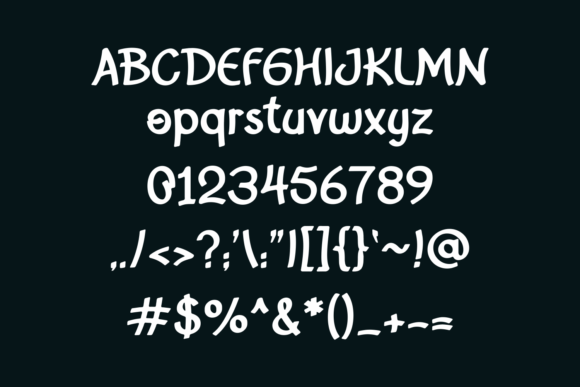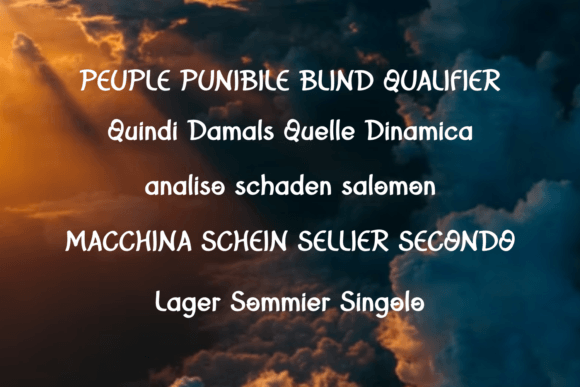
Introduction to Minorika Font
As designers, we’ve all been there – staring at a blank canvas, struggling to find the perfect font to bring our creative project to life. The right font can elevate an entire design, but the wrong one can leave it feeling flat and uninspired. That’s why discovering a high-quality, unique font like the Minorika Font is a game-changer.
With its sleek, sans-serif design and meticulous attention to detail, the Minorika Font is a valuable addition to any designer’s toolkit. Whether you’re working on a personal project or a client’s design, this font has the potential to take your creations to the next level. And the best part? It’s available for free download, making it an accessible resource for designers of all levels.
As a design resource, the Minorika Font offers a level of versatility and sophistication that’s hard to find in other fonts. Its clean lines and transparent background make it perfect for a wide range of applications, from logos and branding to digital graphics and print materials.
Key Features of Minorika Font
- High-quality, unique design ideal for creative projects
- Perfect for use in graphic design, digital art, and other creative projects where a distinctive font is needed
- Minorika Font is a valuable design resource for anyone looking to add a touch of elegance and sophistication to their work
Honest Review: Minorika Font
As a designer, I’m always on the lookout for high-quality design resources that can elevate my creative projects. The Minorika Font has been a recent addition to my design toolkit, and I’m excited to share my honest review with you.
- ✨ The Minorika Font has a beautiful, elegant design that’s perfect for a wide range of creative projects, from branding and marketing materials to digital products and print materials.
- ✨ The font comes in a transparent background, making it easy to use with any background image or color.
- ⚠️ The Minorika Font is a relatively simple font, which may not be suitable for projects that require a more complex or custom font.
Overall, I’m really impressed with the Minorika Font. It’s a high-quality design resource that’s perfect for designers who want a elegant and versatile font for their creative projects.
The Minorika Font is a high-quality design resource perfect for creative projects. It offers a unique and elegant style that can elevate any design. To use this font, you can download it for free and start incorporating it into your projects.
To get the most out of the Minorika Font, consider using it with a transparent background to create a clean and modern look. You can also experiment with different font sizes and colors to create a unique design.
Common Use Cases for Minorika Font
The Minorika Font is commonly used in logo design, graphics, and text overlays. It’s also a great choice for presentations, documents, and other creative projects where a high-quality font is needed.